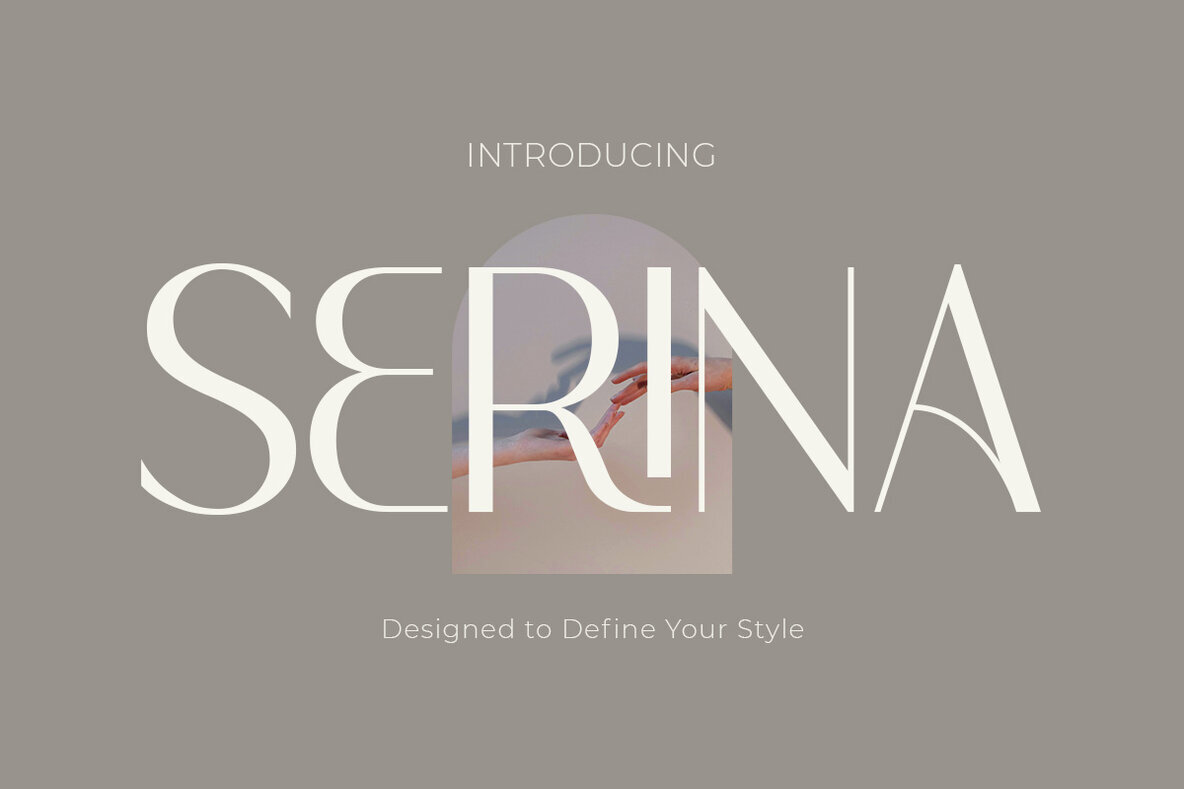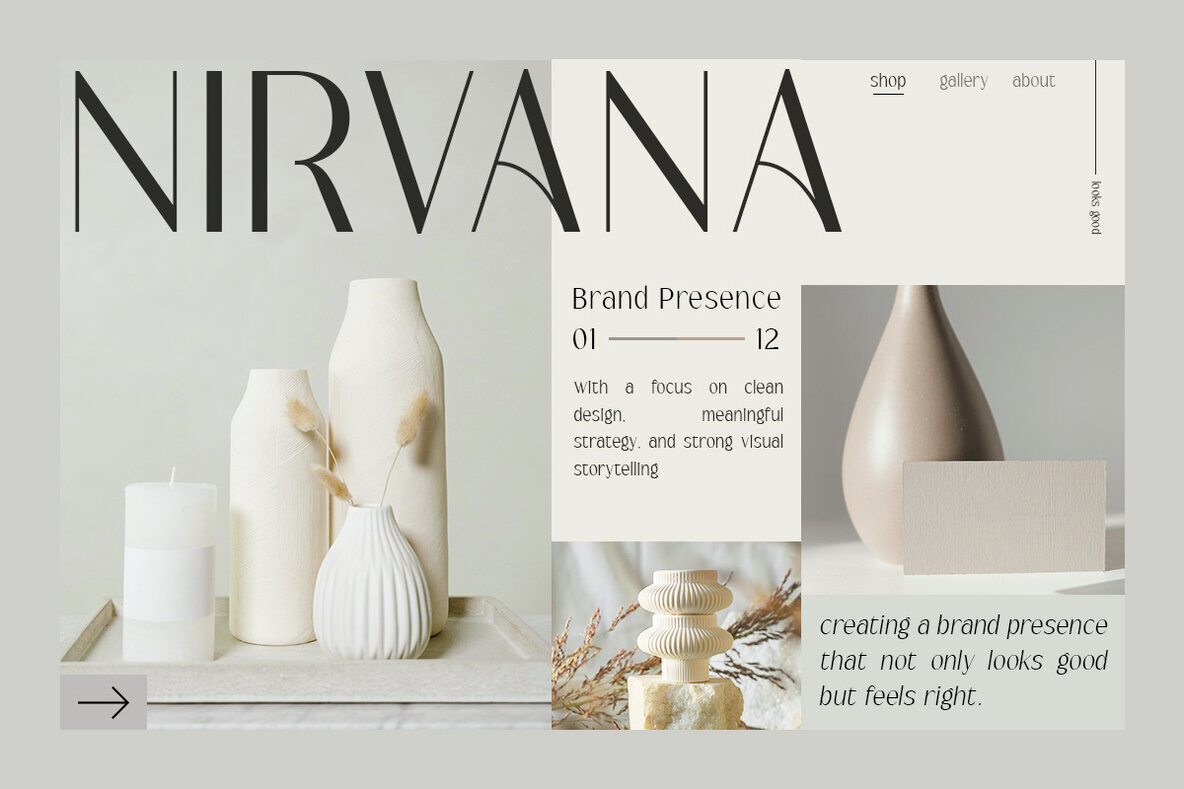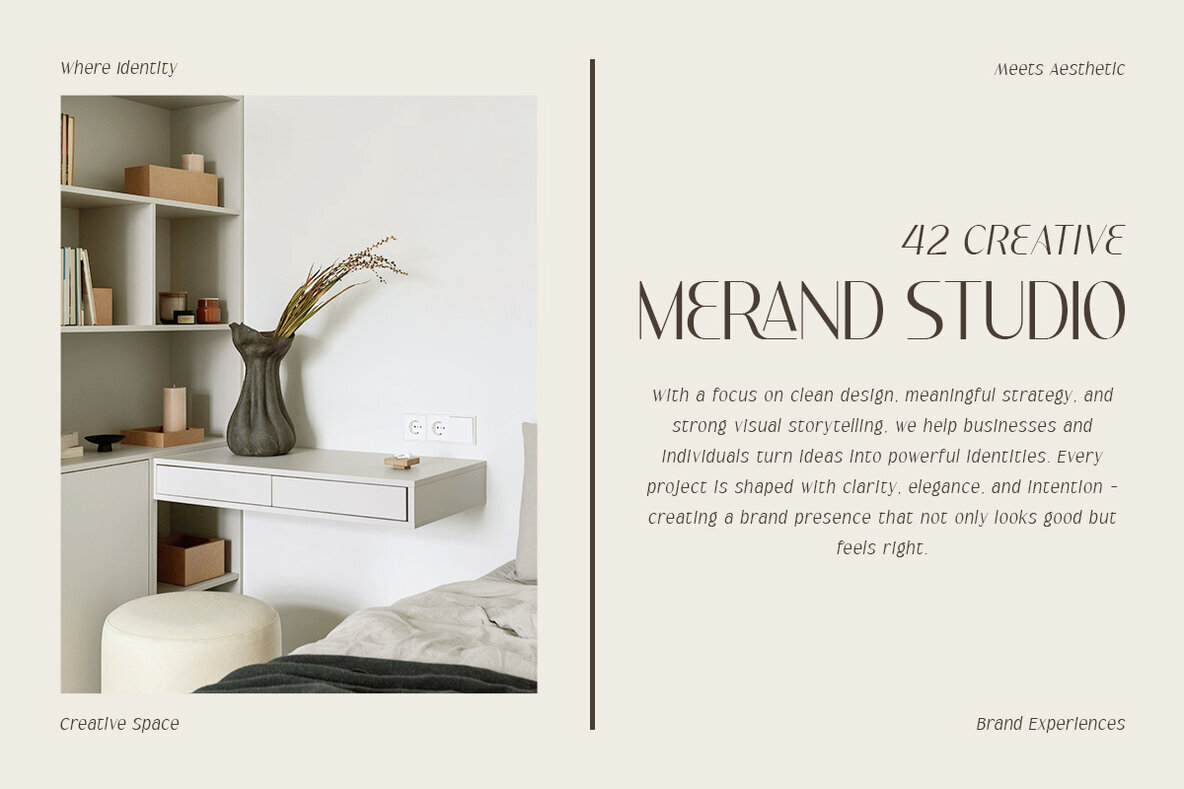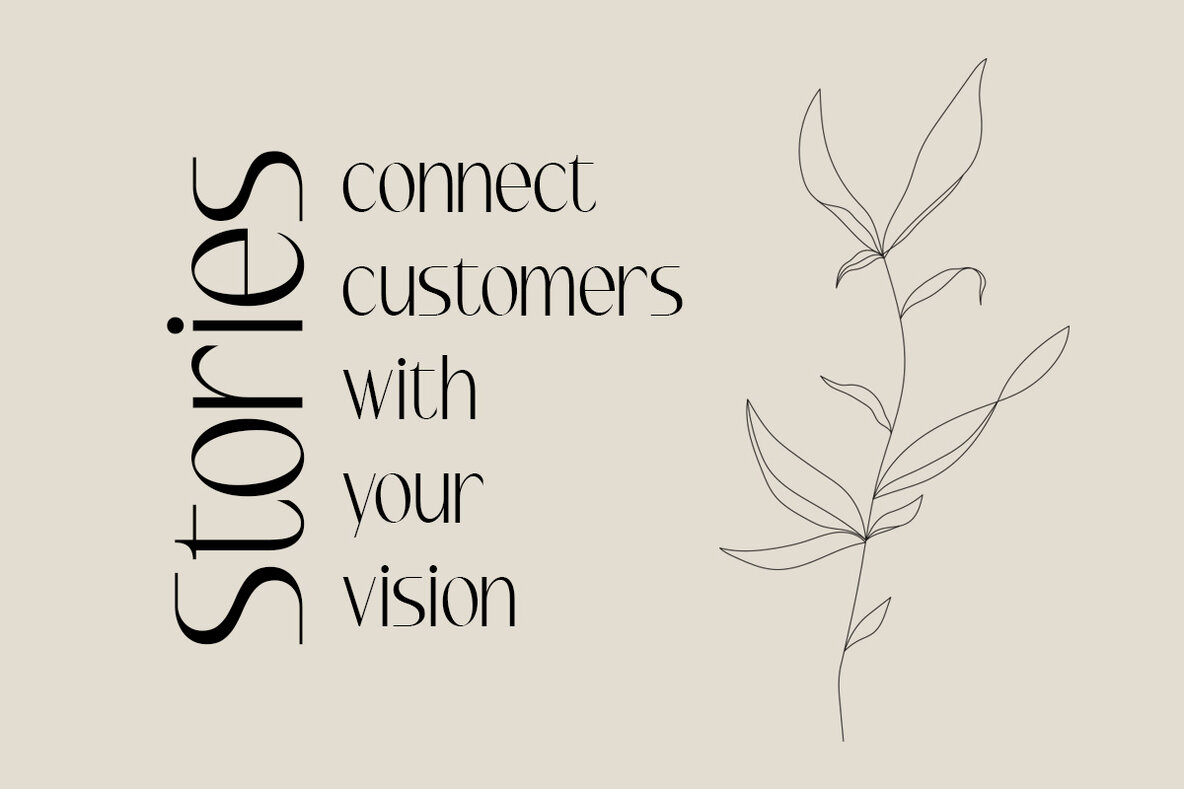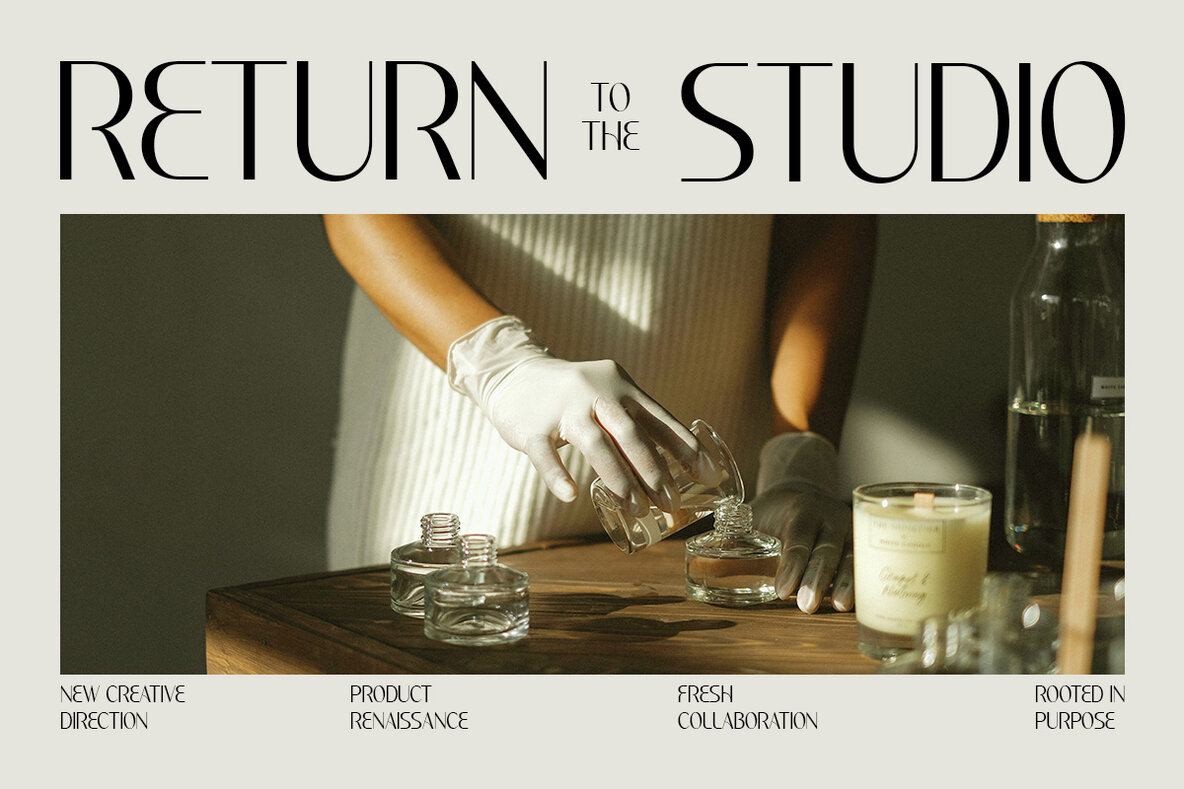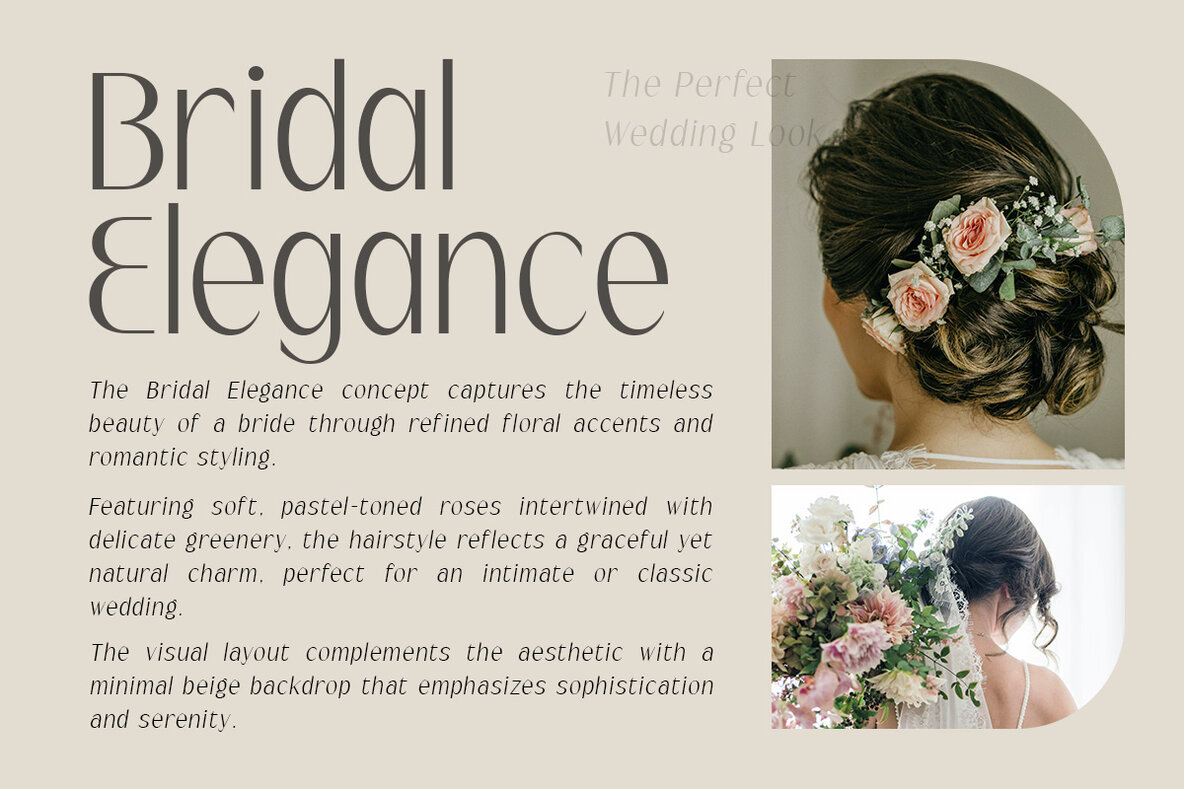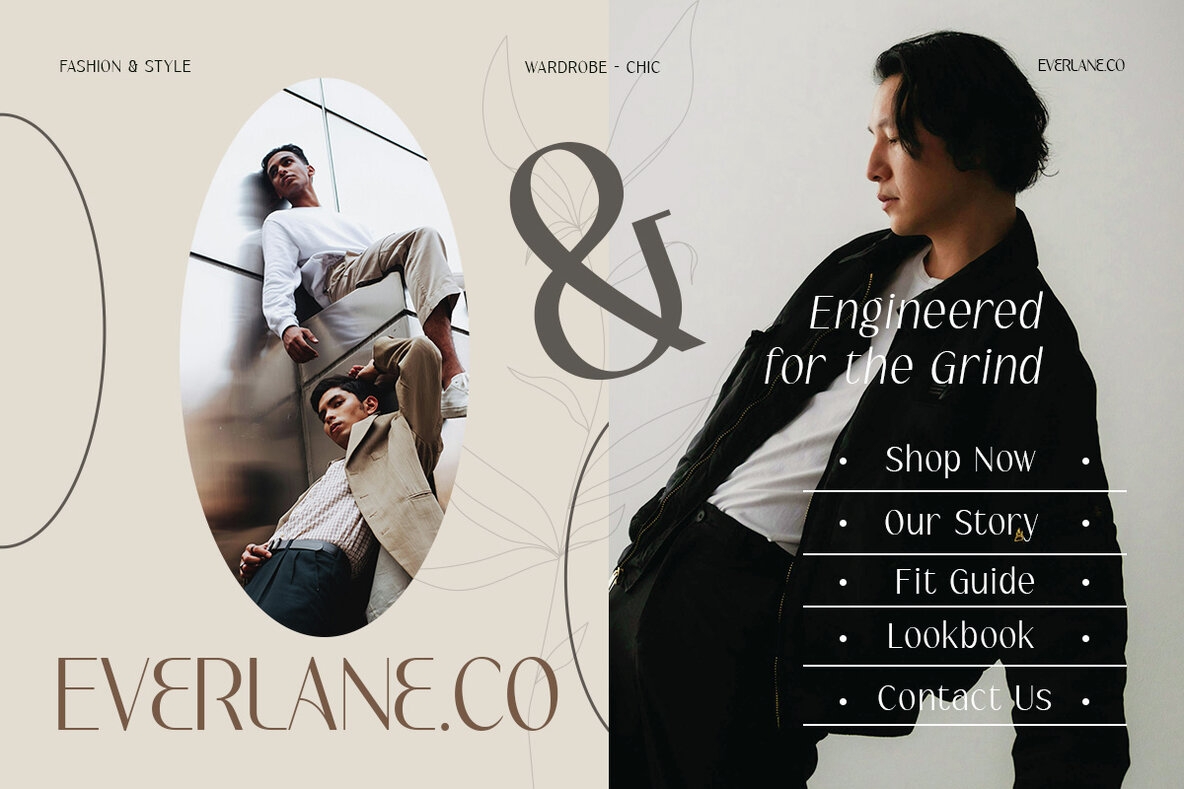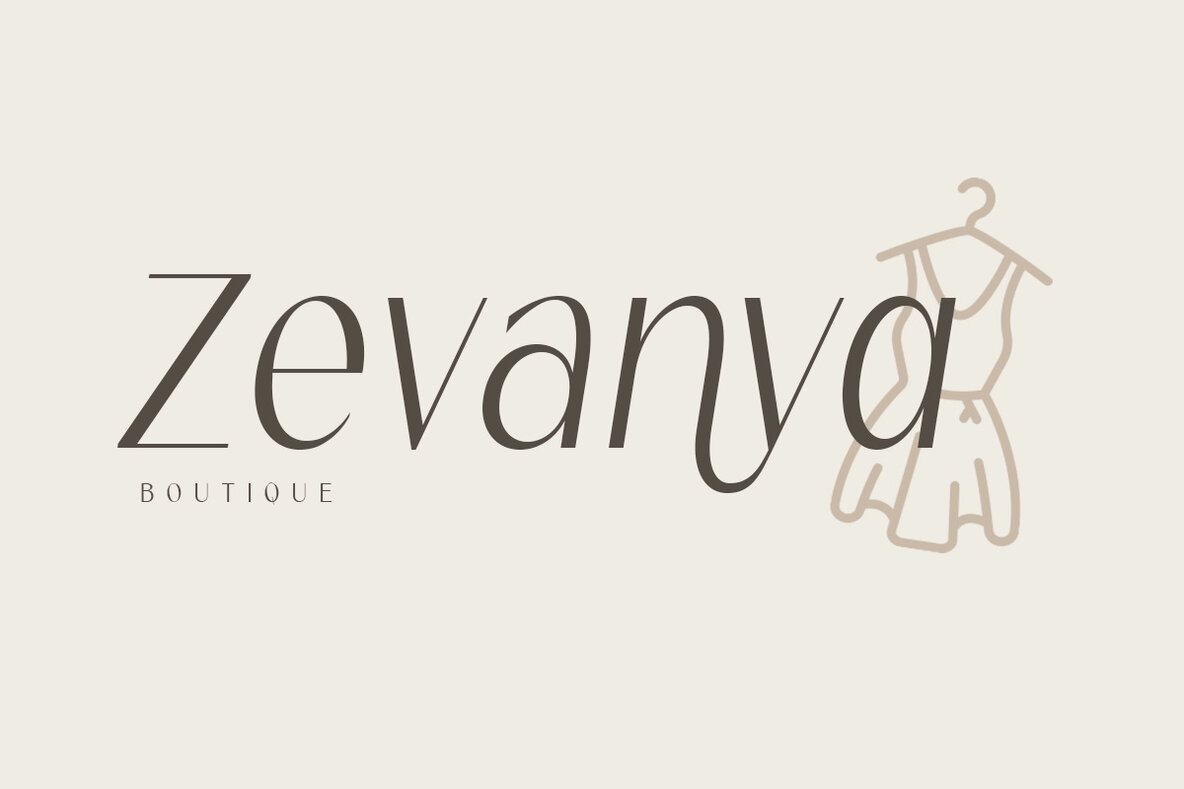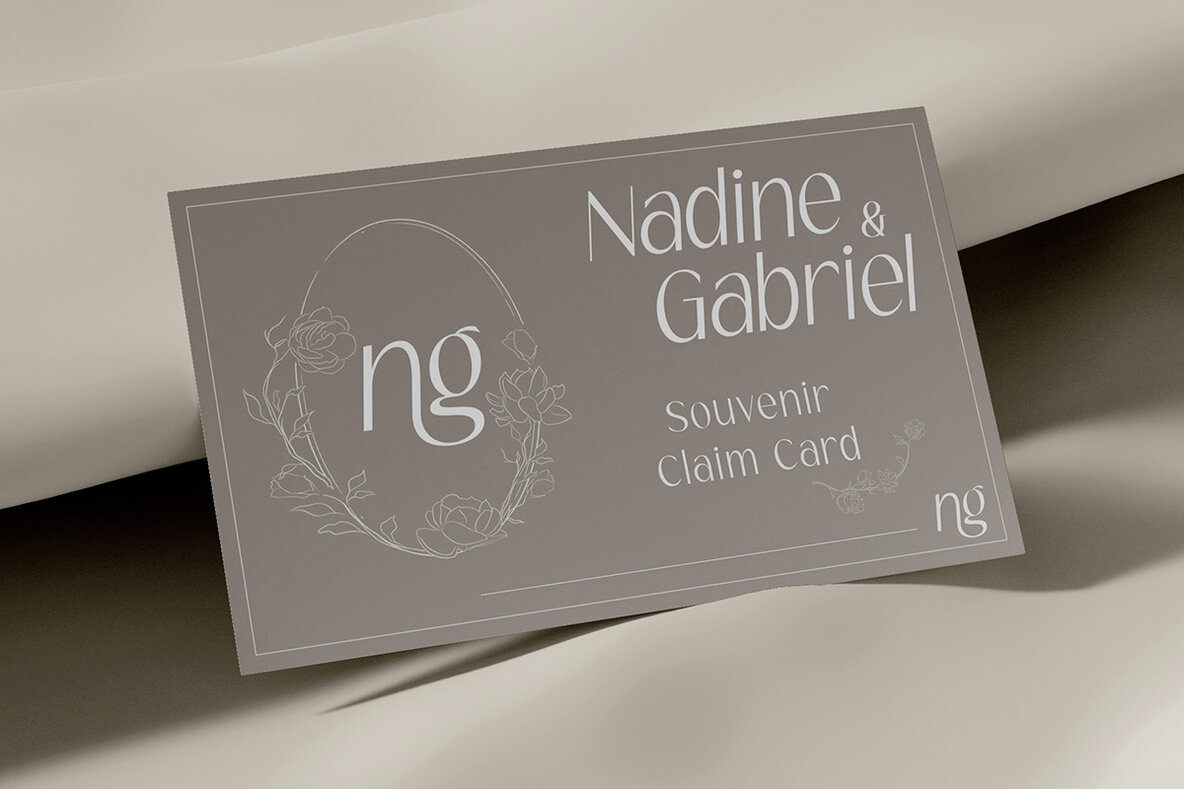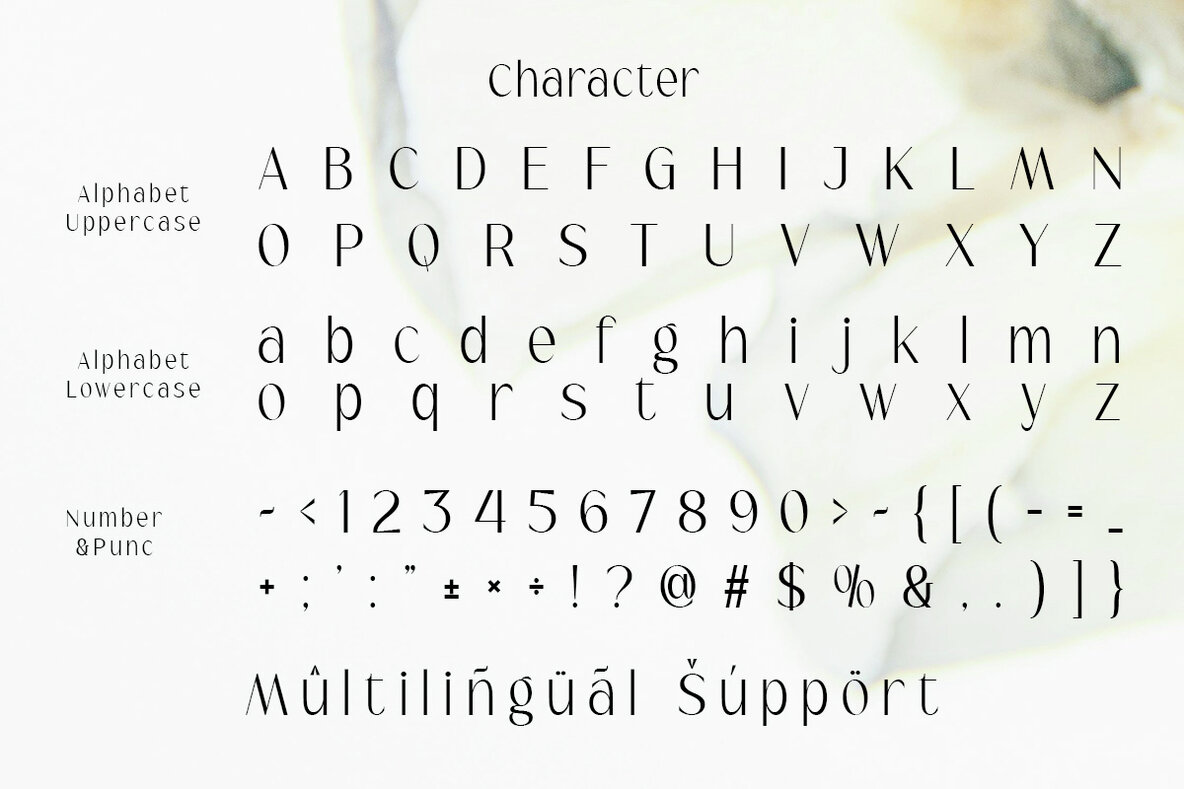
Serina Font
Serina is an elegant sans serif typeface expertly crafted for modern brands in fashion, editorial, and luxury sectors. Its refined design, complete with stylish ligatures and confident curves, offers a timeless yet trendy appearance, perfect for applications ranging from social media branding to premium product packaging. This typeface balances soft sophistication with a professional edge, making it an ideal choice for boutique labels, bridal media, or minimalist beauty lines. Designed with creative professionals in mind, Serina includes a comprehensive set of uppercase and lowercase letters, numerical characters, punctuation, and multilingual support for creating diverse compositions effortlessly. The addition of alternate characters and distinctive ligatures further enhances customization, allowing your headers and logos to shine with individual flair. Whether enhancing social media content, magazine spreads, or digital headers, Serina infuses a sophisticated tone into your visual narratives.Serina Typeface